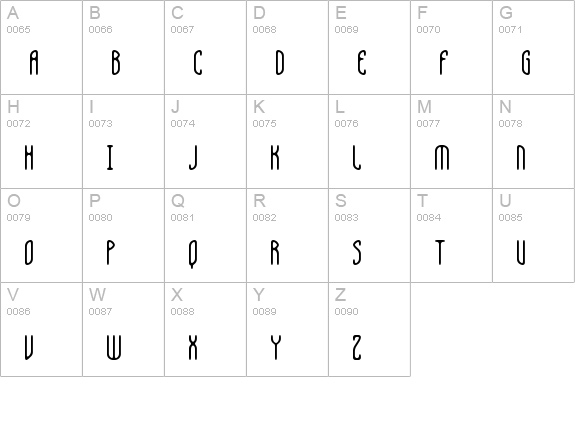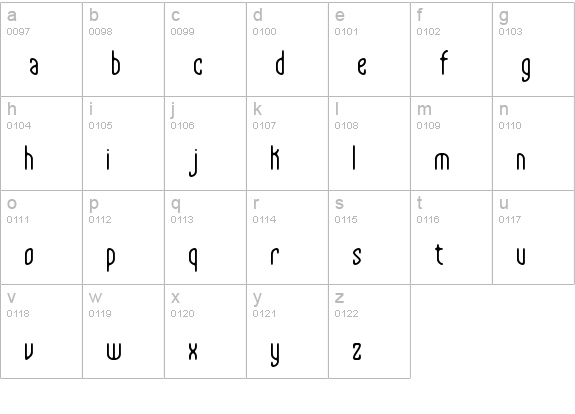
Supra Genius Curves BRK Font Details
Supra Genius Curves BRK is a captivating and stylish font that exudes elegance and sophistication. With its graceful curves and unique design, this font is perfect for adding a touch of class to any project. Whether you're creating a logo, a poster, or a website, Supra Genius Curves BRK will make your text stand out and leave a lasting impression. What sets this font apart is not only its beauty but also its versatility. It can be used for a wide range of projects, from fashion magazines to luxury branding. The sleek lines and intricate details of Supra Genius Curves BRK will elevate your design to new heights. The best part? Supra Genius Curves BRK is available for free download at FontsMarket.com. Now you can access this stunning font without any cost, making it a valuable addition to your font collection. Don't miss out on the opportunity to enhance your designs with the timeless charm of Supra Genius Curves BRK. Download it today and see the difference it can make in your creative projects.